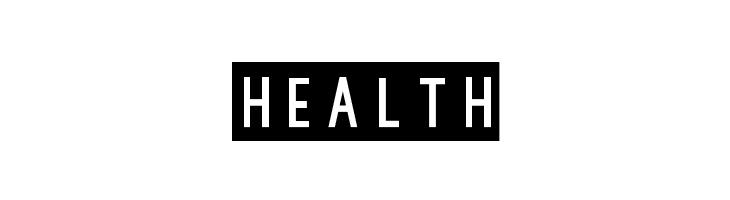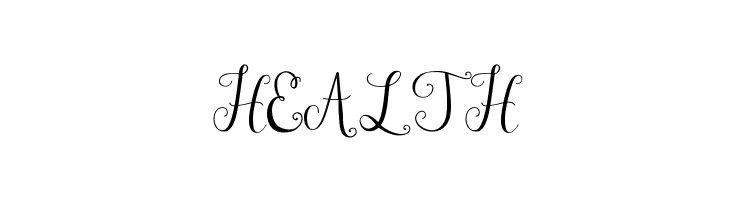
A bold, modern font with geometric lines and uniform spacing.
A playful, bold font with a bouncy and dynamic style.
A playful, rounded font with a whimsical and friendly style.
A playful, handwritten font with a whimsical and friendly style.
A modern, geometric font with bold uppercase and cohesive lowercase letters.
An elegant, decorative font with intricate swirls and flourishes.
A playful, hand-drawn font with a 3D sketch effect and diagonal hatching.